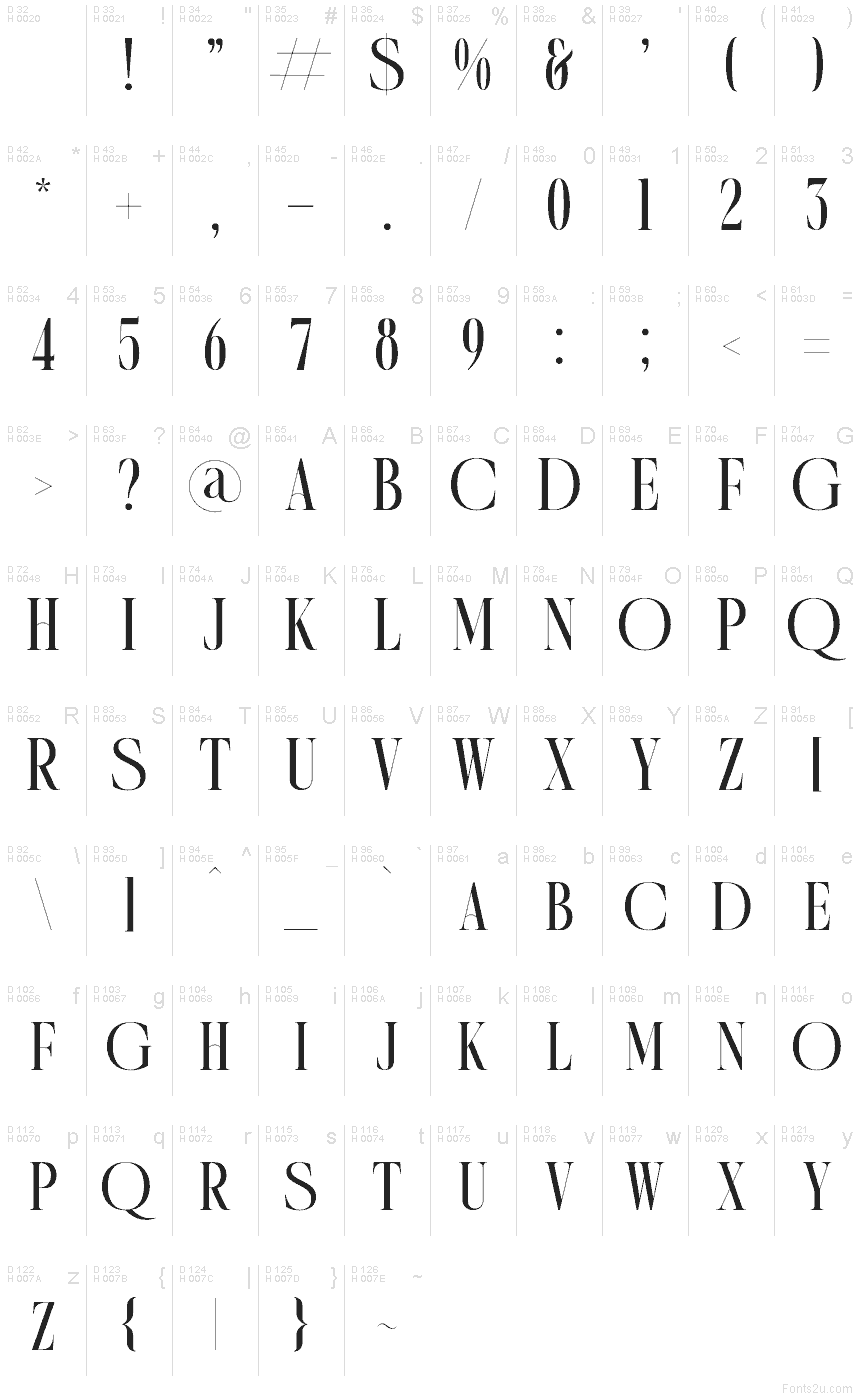
Quartens
Quartens font by Storytype Studio is a refined condensed serif with a sophisticated and elegant style. It includes strong capitals, firm thin lines regular-style letters, and prominent hooks in (and at times also out of) letters’ stems. Ascending or descending curvy strokes dominate many of the visible edges but horizontally rounded ends can occasionally be noticed.